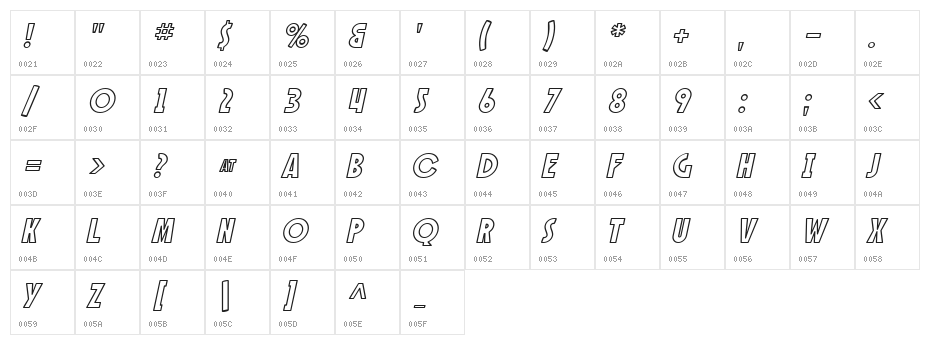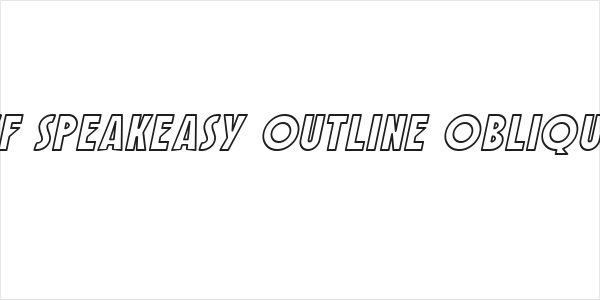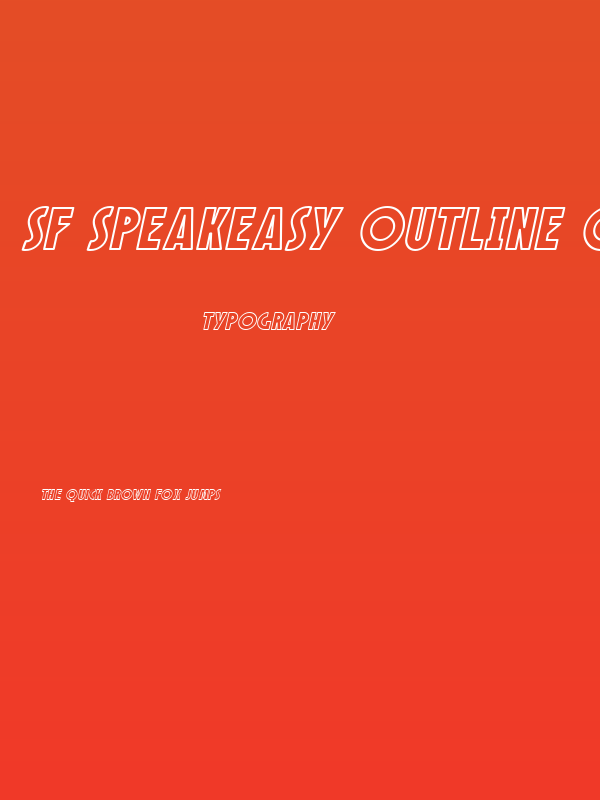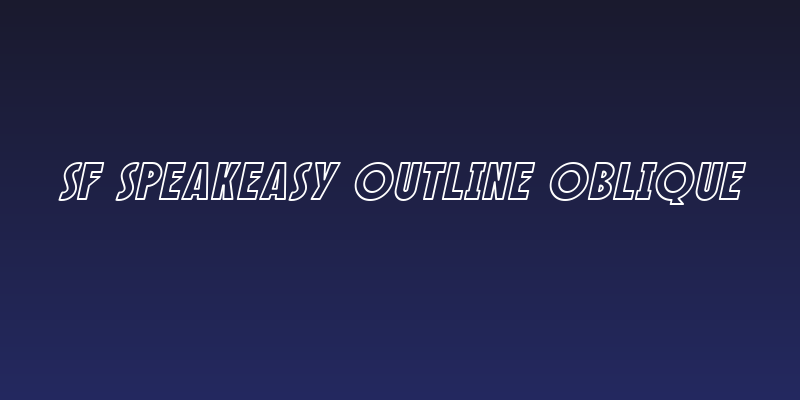
SF Speakeasy Outline Oblique Font
SF Speakeasy Outline Oblique Description
This font features a bold, outlined style with an oblique slant, giving it a dynamic and energetic appearance. The uppercase and lowercase letters are consistent in their angular design, with sharp edges and clean lines that create a sense of movement. The numbers and special characters maintain this cohesive look, ensuring versatility across different uses. The outlined nature of the font adds a layer of depth, making it suitable for eye-catching designs. Its geometric structure and uniform stroke width contribute to a modern aesthetic, while the oblique angle introduces a playful twist.
| Proposed Projects | Ideal for posters, logos, headlines, and branding materials that require a bold statement. |